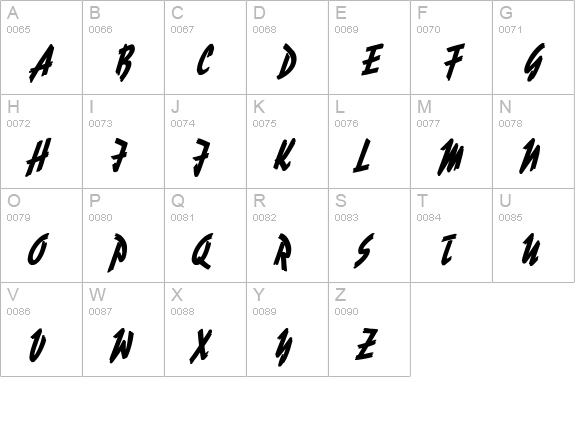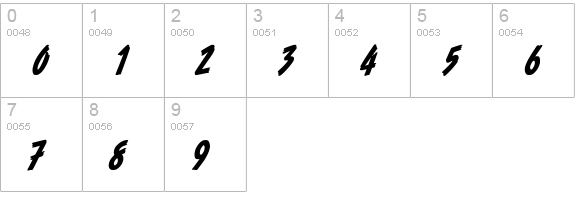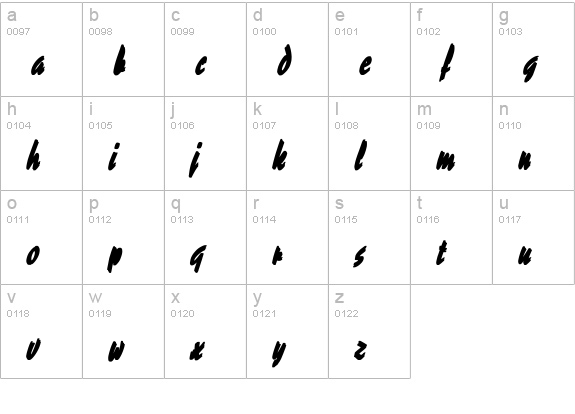
Reporter-Two Cn Bold Italic is a strong, high-contrast, italic variant in the Reporter typeface family \xE2\x80\x94 well suited to headlines, attention-grabbing titles, and strong calls-to-action.
Introducing Reporter-Two Cn Bold Italic, a sensational font that exudes confidence and sophistication in every letter. This unique typeface combines boldness with a touch of elegance, making it the perfect choice for headlines, logos, and editorial designs that demand attention. The Reporter-Two Cn Bold Italic font boasts a distinct personality that captures the essence of professionalism and flair. Its sleek and slanted italic design adds a contemporary twist to your projects, while the bold strokes command a strong presence on any medium. Whether you're crafting a magazine spread, designing a website, or creating eye-catching advertisements, this font will effortlessly elevate your work to new heights. One of the best aspects of Reporter-Two Cn Bold Italic is its versatility. It seamlessly blends into a variety of design styles, from modern and minimalist to classic and timeless. Its clean and crisp lines ensure legibility, even in smaller sizes, making it a reliable choice for both print and digital applications. More excitingly, Reporter-Two Cn Bold Italic is available as a free download exclusively at FontsMarket.com. This means that you can enjoy the beauty and functionality of this exceptional font without any cost. Don't miss out on this amazing opportunity to enhance your designs with a typeface that embodies sophistication and professionalism. Download Reporter-Two Cn Bold Italic today and let your creativity soar. With its impeccable style and availability at FontsMarket.com, this font will undoubtedly become your go-to choice for captivating and impactful designs.